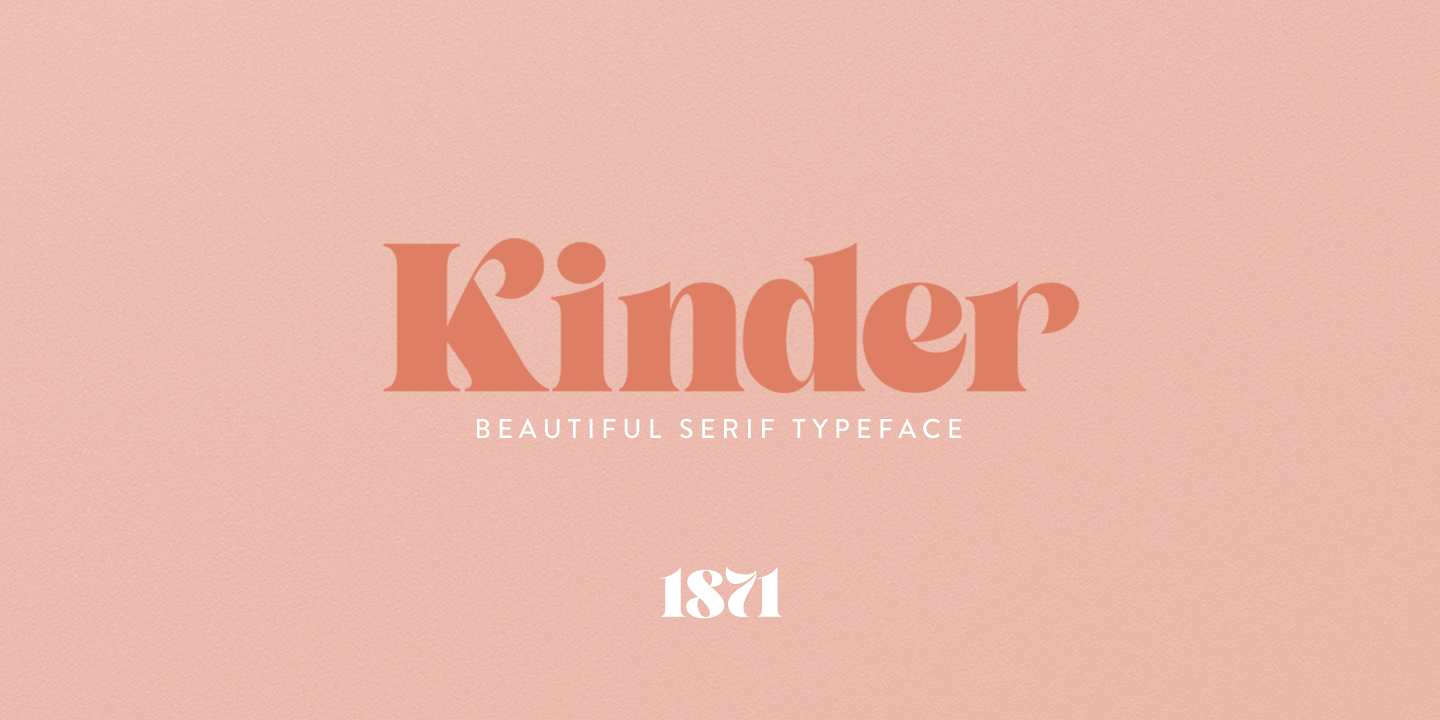
The Kinder Font is perfect for various design applications including children's book illustrations, kindergarten classroom materials, daycare center branding, toy store signage, children's clothing labels, educational app interfaces, playground equipment graphics, and family-friendly restaurant menus. This playful typeface works exceptionally well for child-focused brands and projects requiring innocent charm with educational appeal that speaks directly to young audiences.
What makes Kinder Font exciting is its gentle and nurturing character that instantly creates a safe, welcoming environment for children while maintaining educational value and playful charm. The font features child-friendly letterforms with soft curves and educational aesthetics that evoke feelings of safety, learning, and joyful discovery. Its caring styling and kindergarten-inspired appearance make it perfect for brands that want to create positive learning experiences and connect with parents seeking quality educational resources for their children.
The Kinder Font family includes multiple weights and styles, offering designers flexibility for diverse educational applications. The family typically consists of regular, bold, light, and playful variations, along with child-friendly decorative elements and educational ornaments, providing comprehensive coverage for projects that need both functionality and gentle charm across different childhood learning contexts.
Whether you're working on educational services, children's products, or family-oriented campaigns, Kinder Font Free Download delivers the nurturing quality and visual warmth that modern child-focused designers require. The font's kindergarten-inspired design combined with its excellent readability makes it an essential tool for creating compelling visual communications that support childhood development and bring the caring spirit of early education to life.